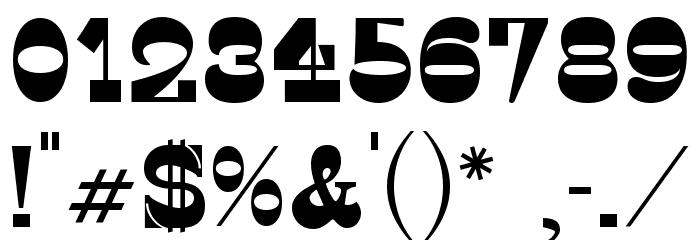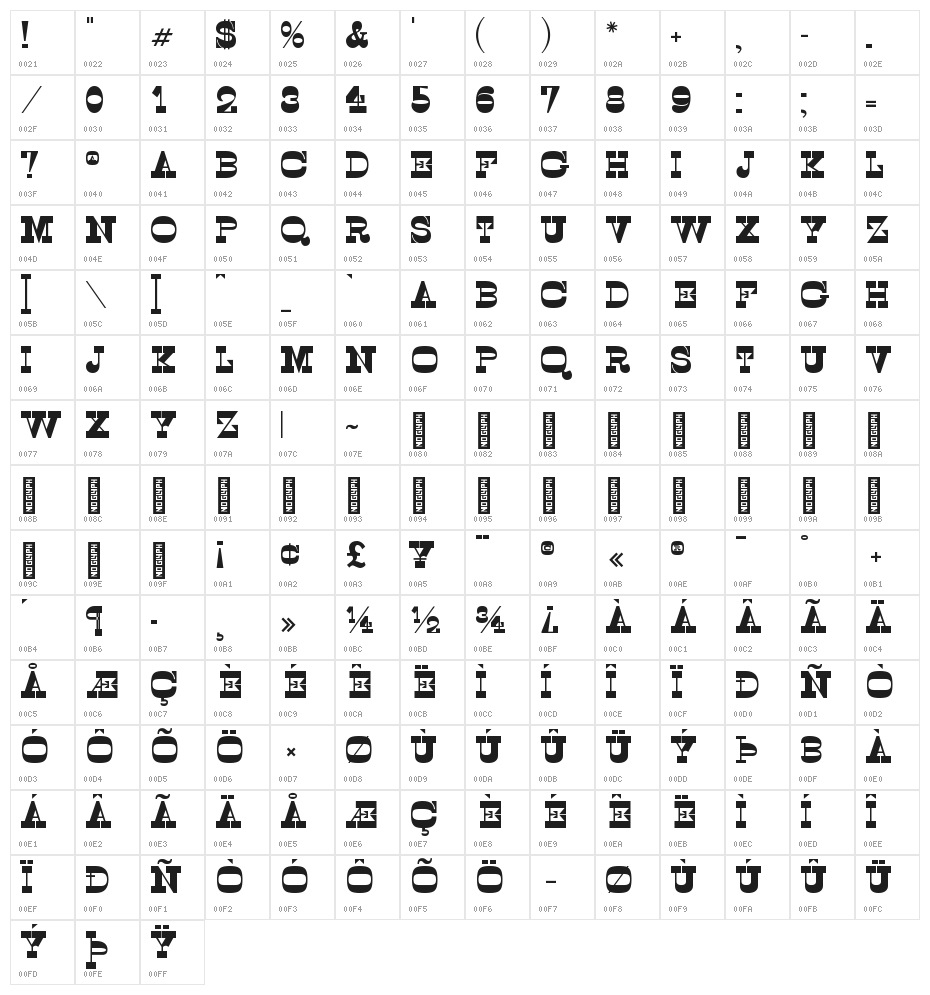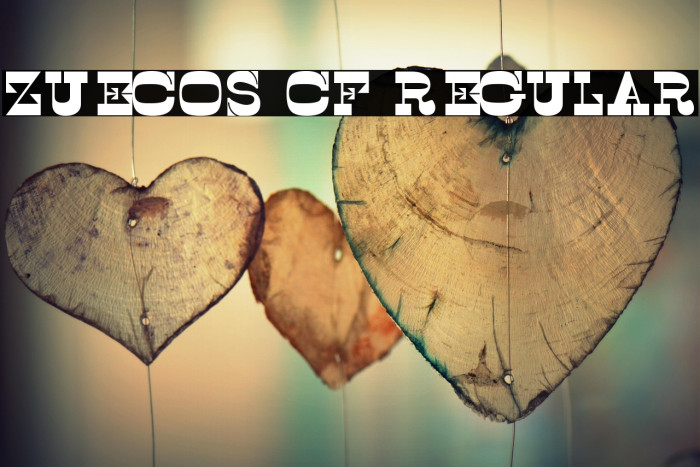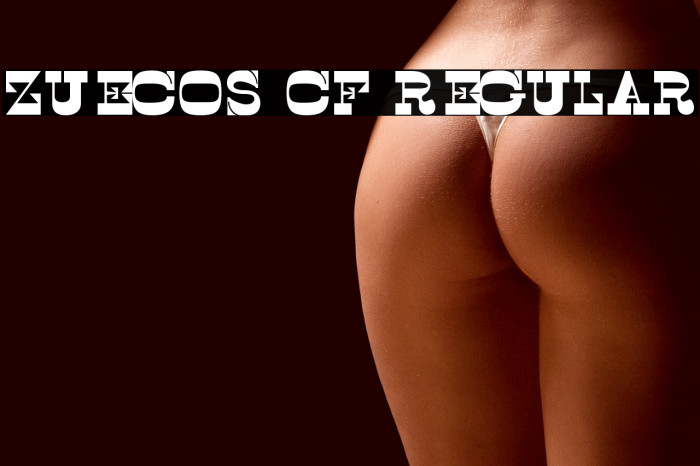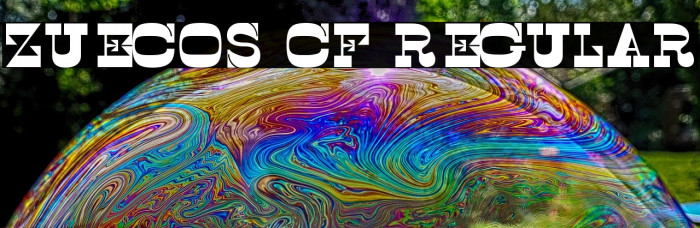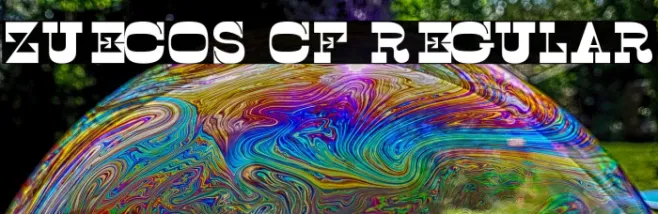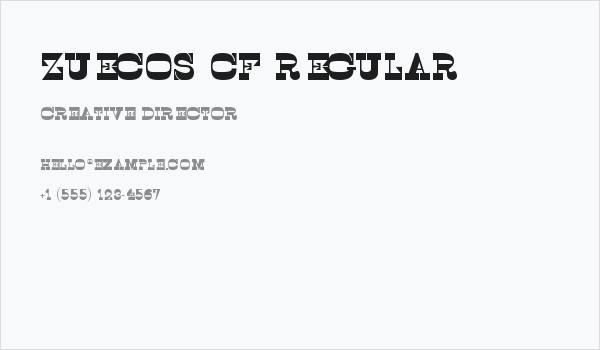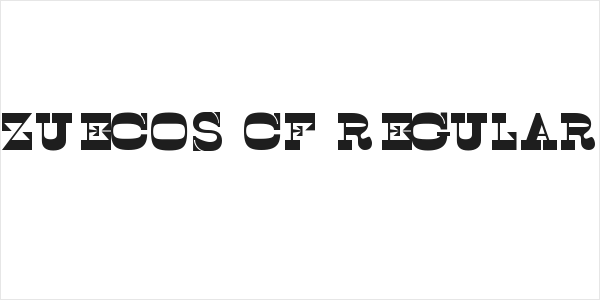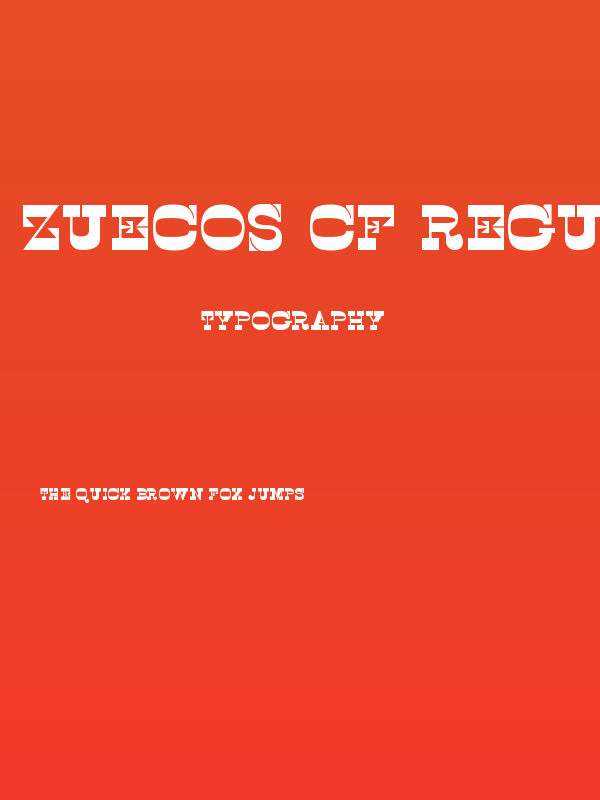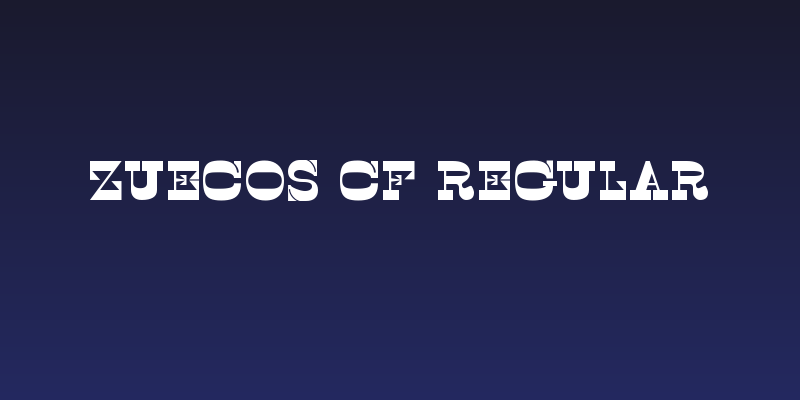
Zuecos CF Regular Font
Zuecos CF Regular Description
This font is a bold and striking slab serif typeface characterized by its strong geometric shapes and thick, block-like serifs. The uppercase letters are particularly prominent, with a commanding presence that makes them ideal for attention-grabbing headlines. The numbers and special characters maintain the same boldness, ensuring consistency across all text elements. The font's design includes unique cutouts and angular elements that add a modern twist to the traditional slab serif style, making it versatile for both classic and contemporary design projects.
| Proposed Projects | This font is perfect for branding projects, poster designs, and any application where a strong, impactful typeface is needed. Its boldness makes it suitable for logos, while its unique style can enhance modern editorial layouts. |